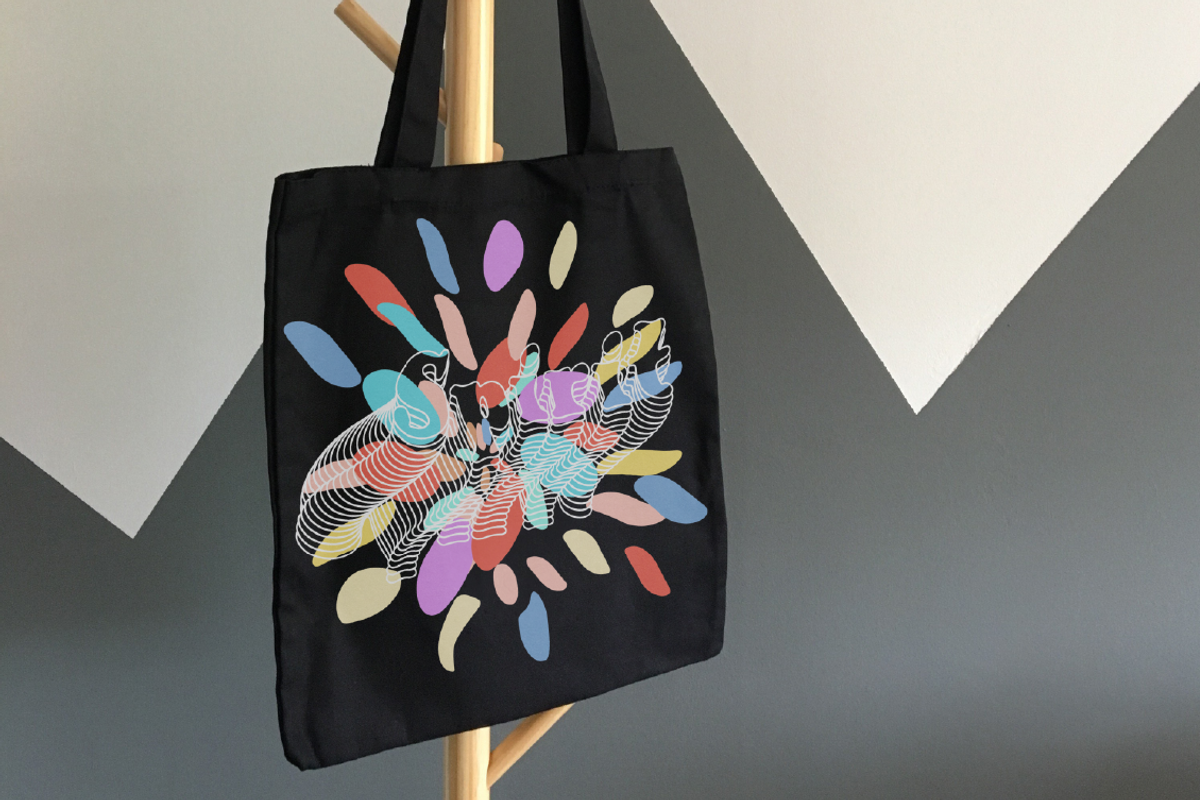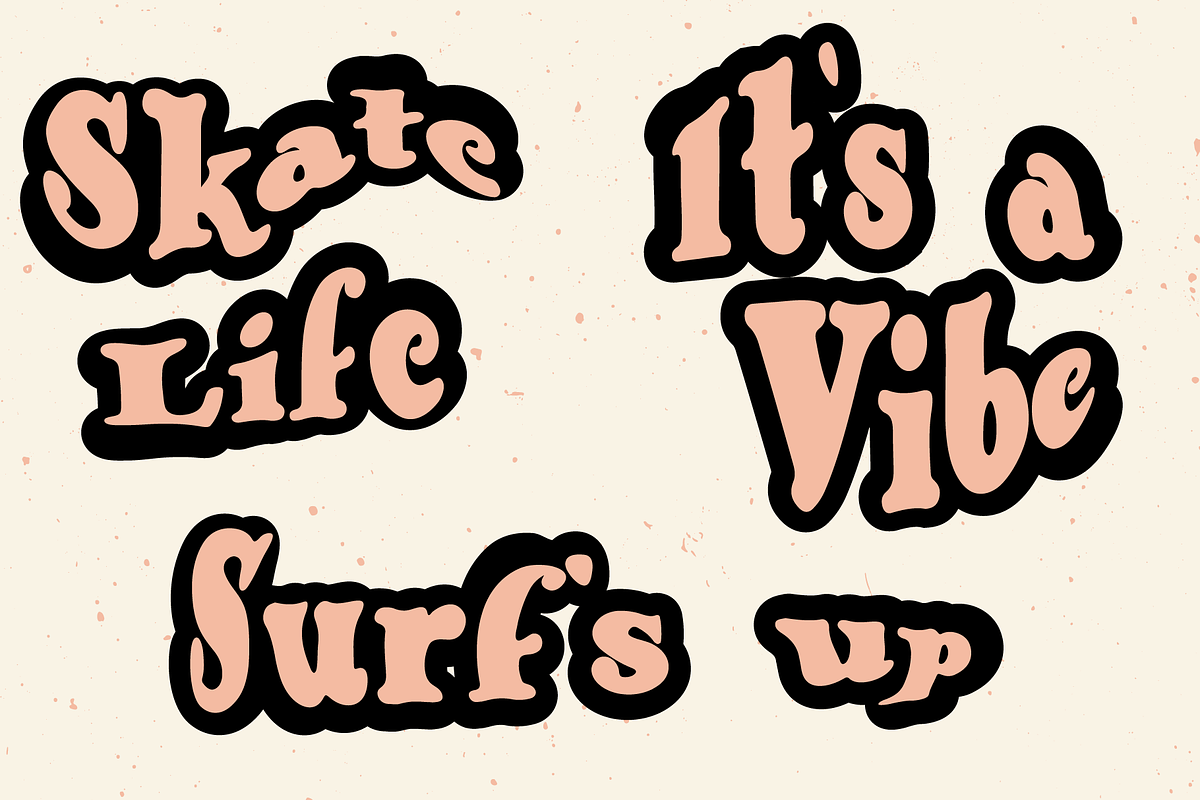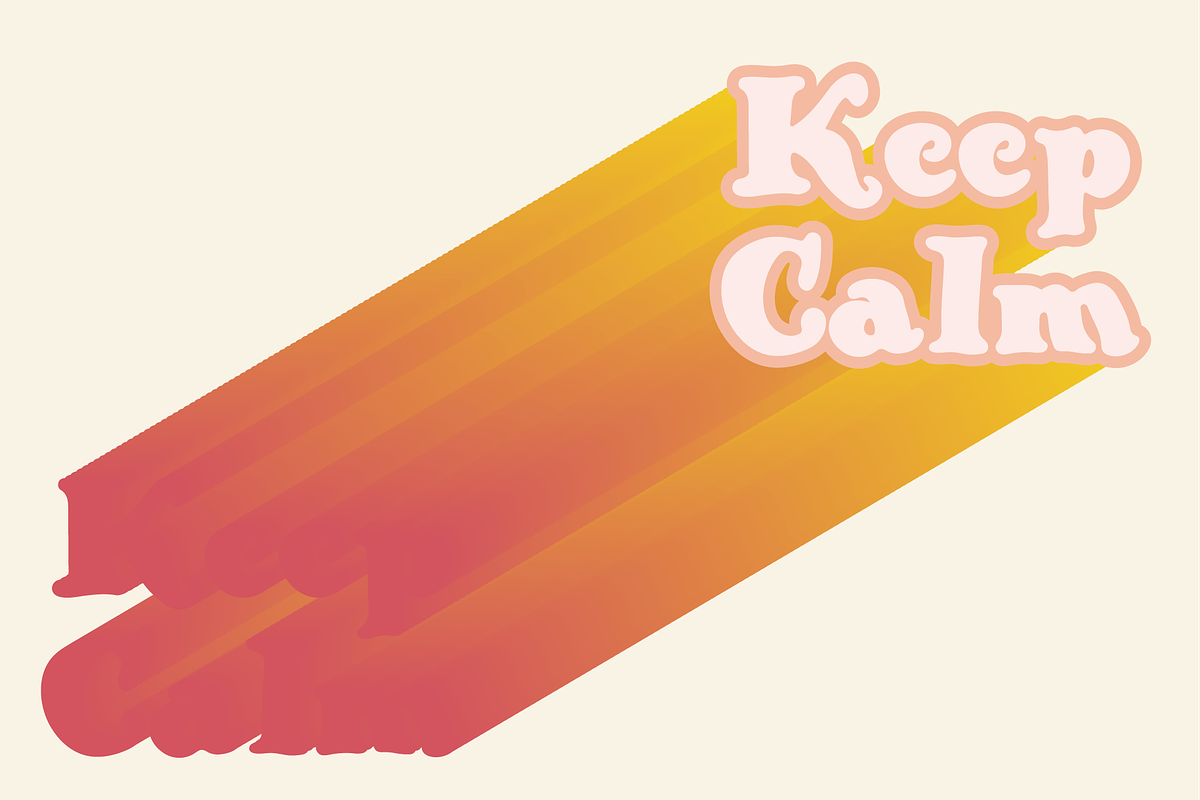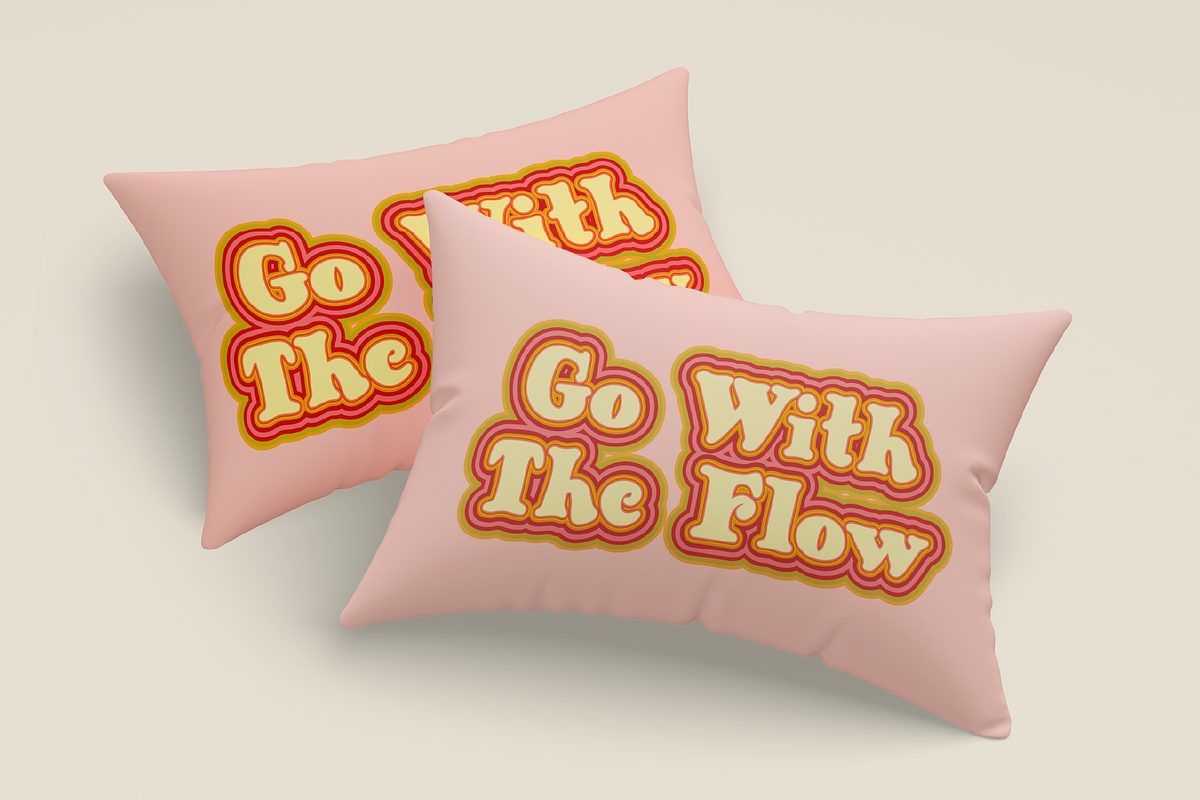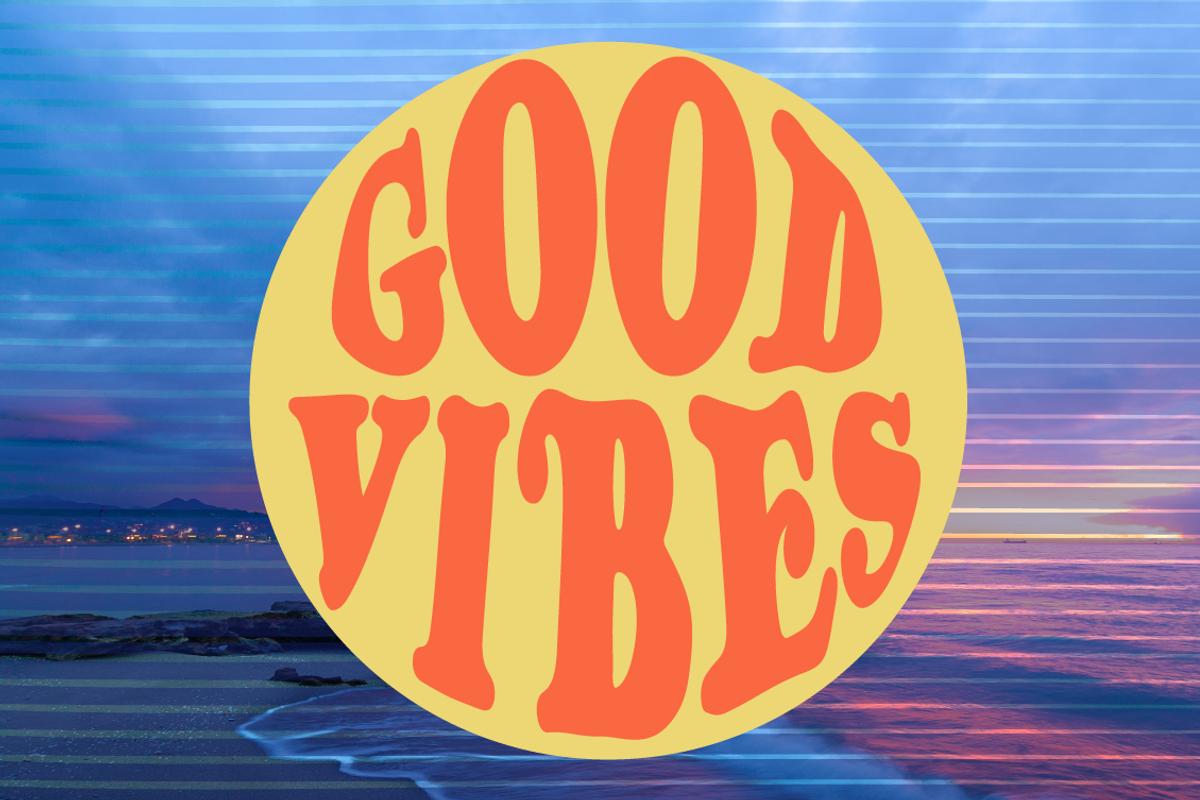
Kombi Spirit - A Groovy Funky Serif
Remember the days of long family roadtrips without seatbelts, tripping on bell bottom jeans and disco roller rinks?
Me neither! But you can catch all those vibes with this funky, 70's inspired font!
Kombi Spirit captures all the joy and freedom of the good-old-days, with a chunky, psychedelic feel. It's perfect for your retro designs, and looks awesome on merchandise and posters! Layer it, warp it or trip it out for a whole range of unique designs.